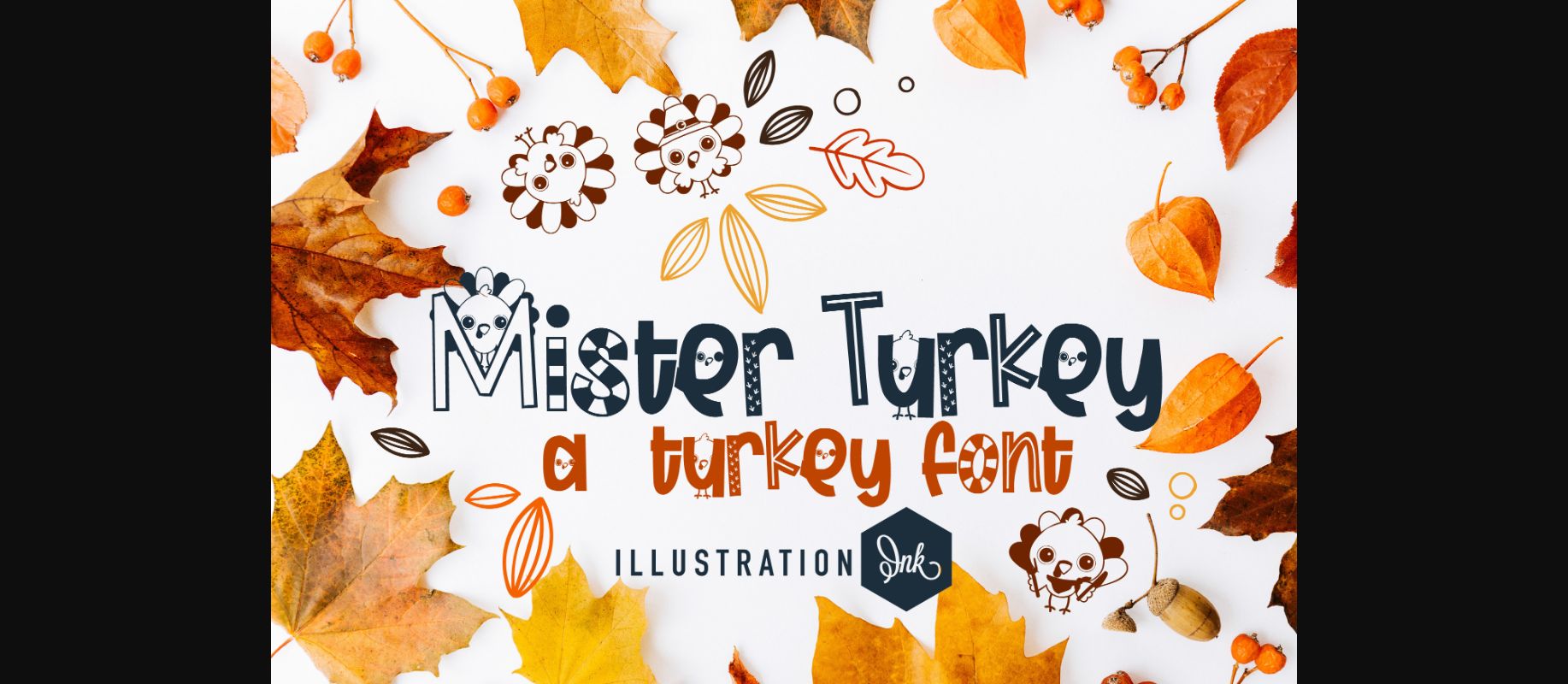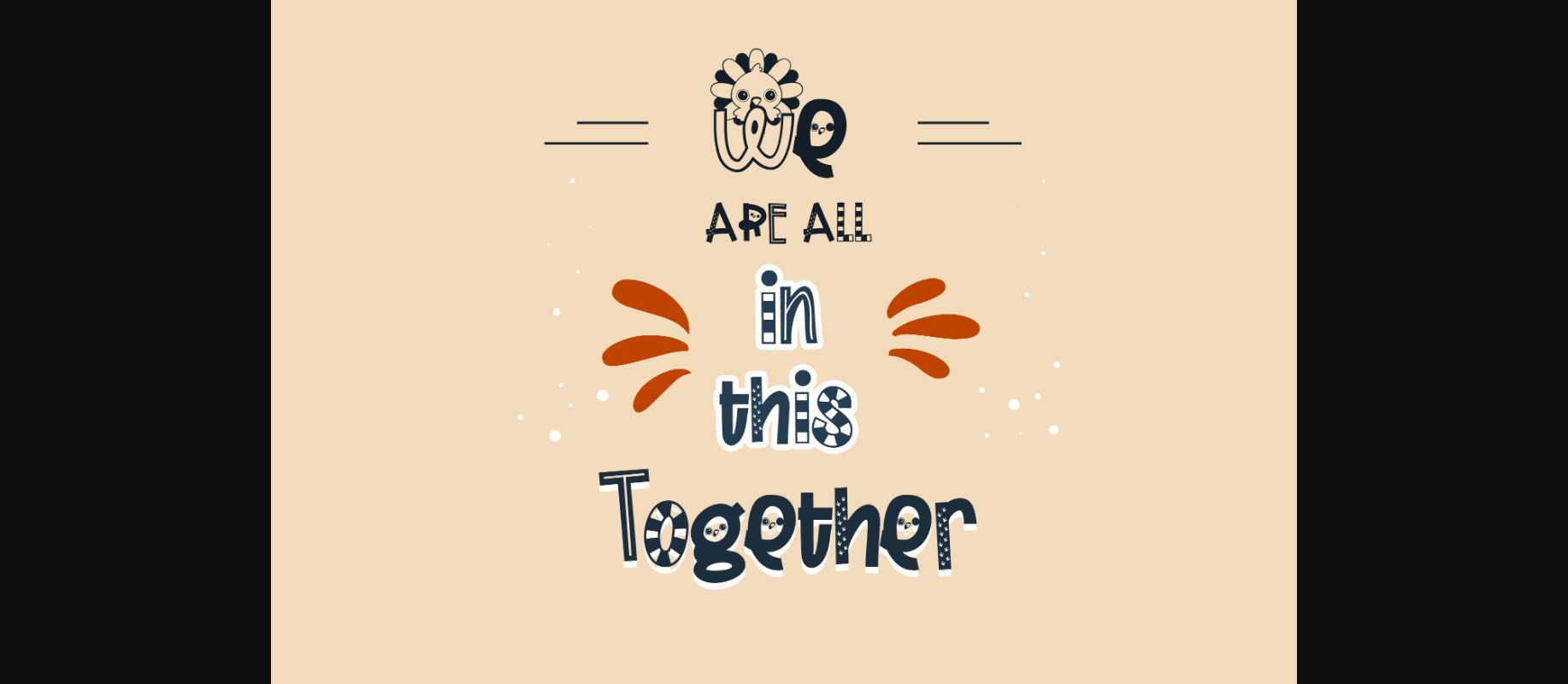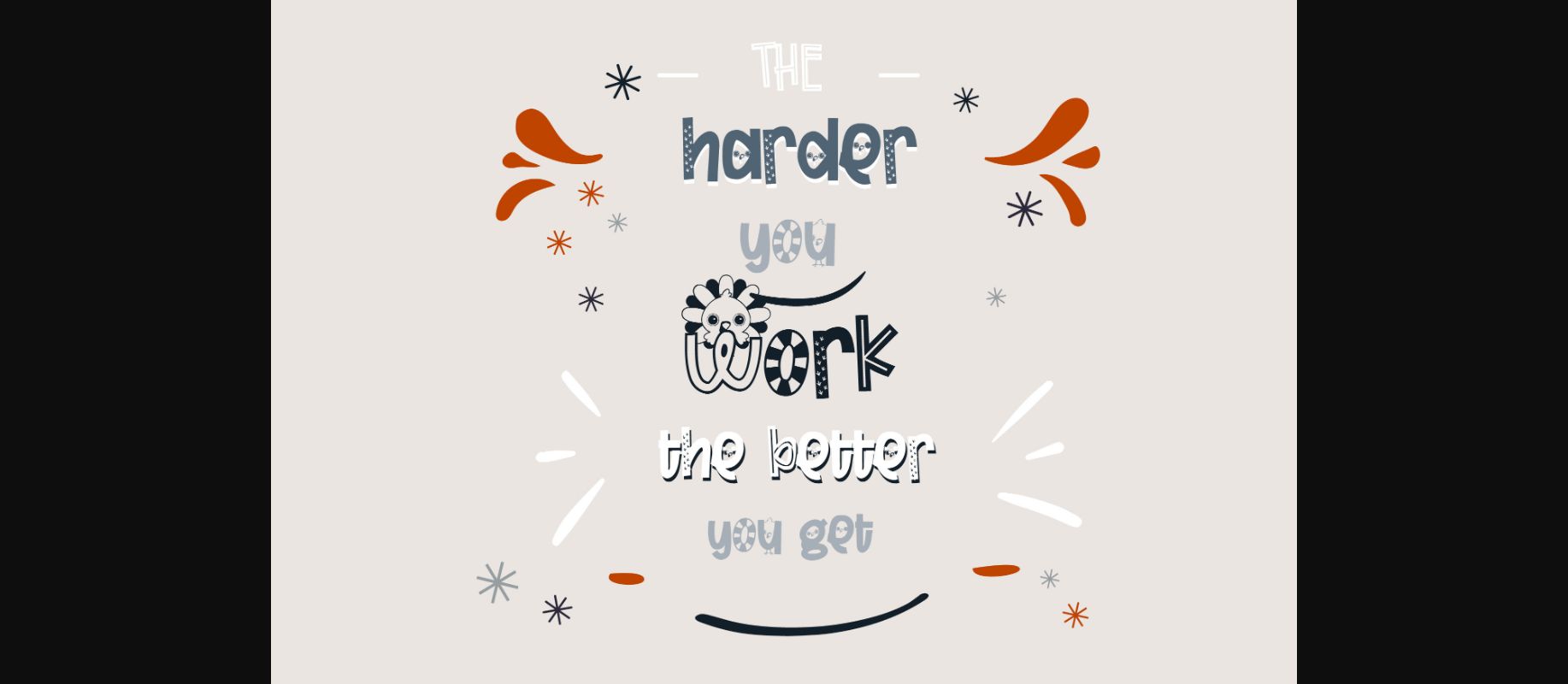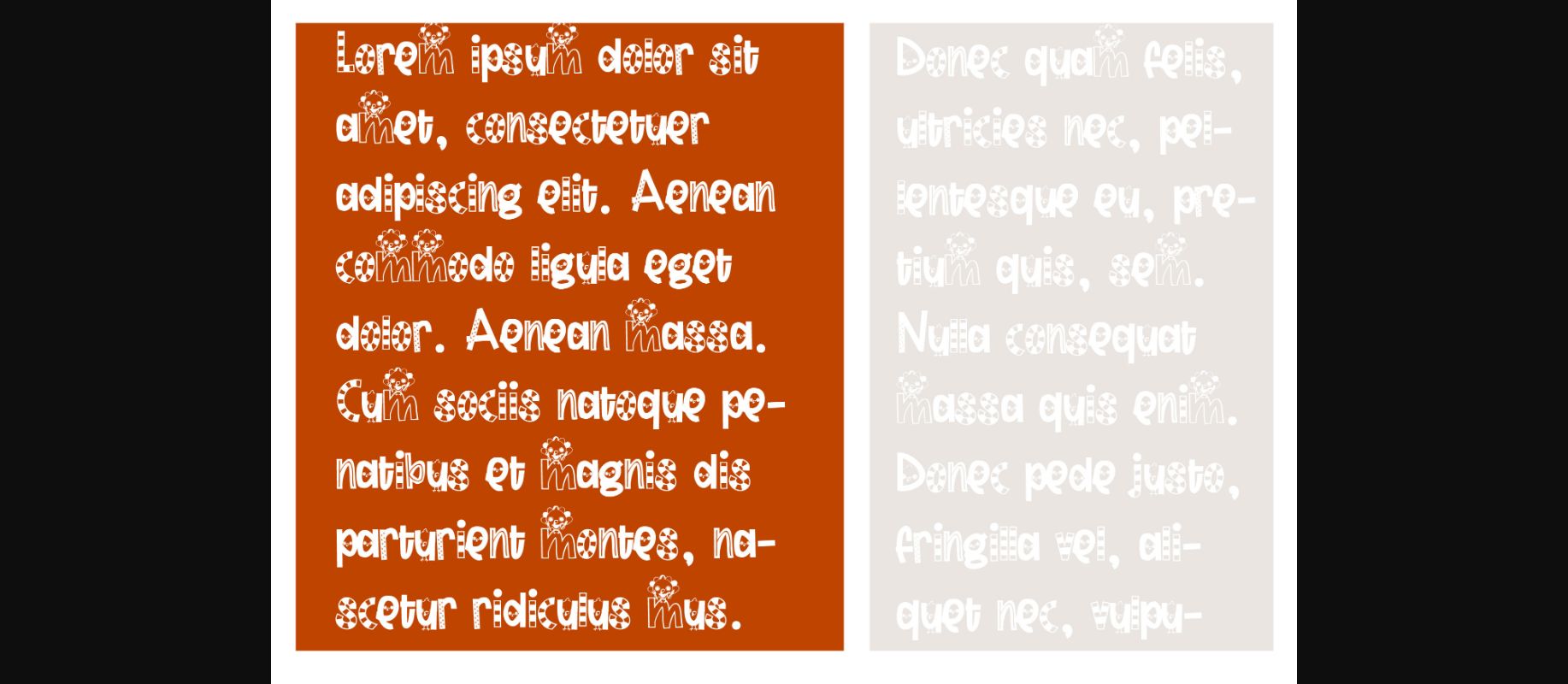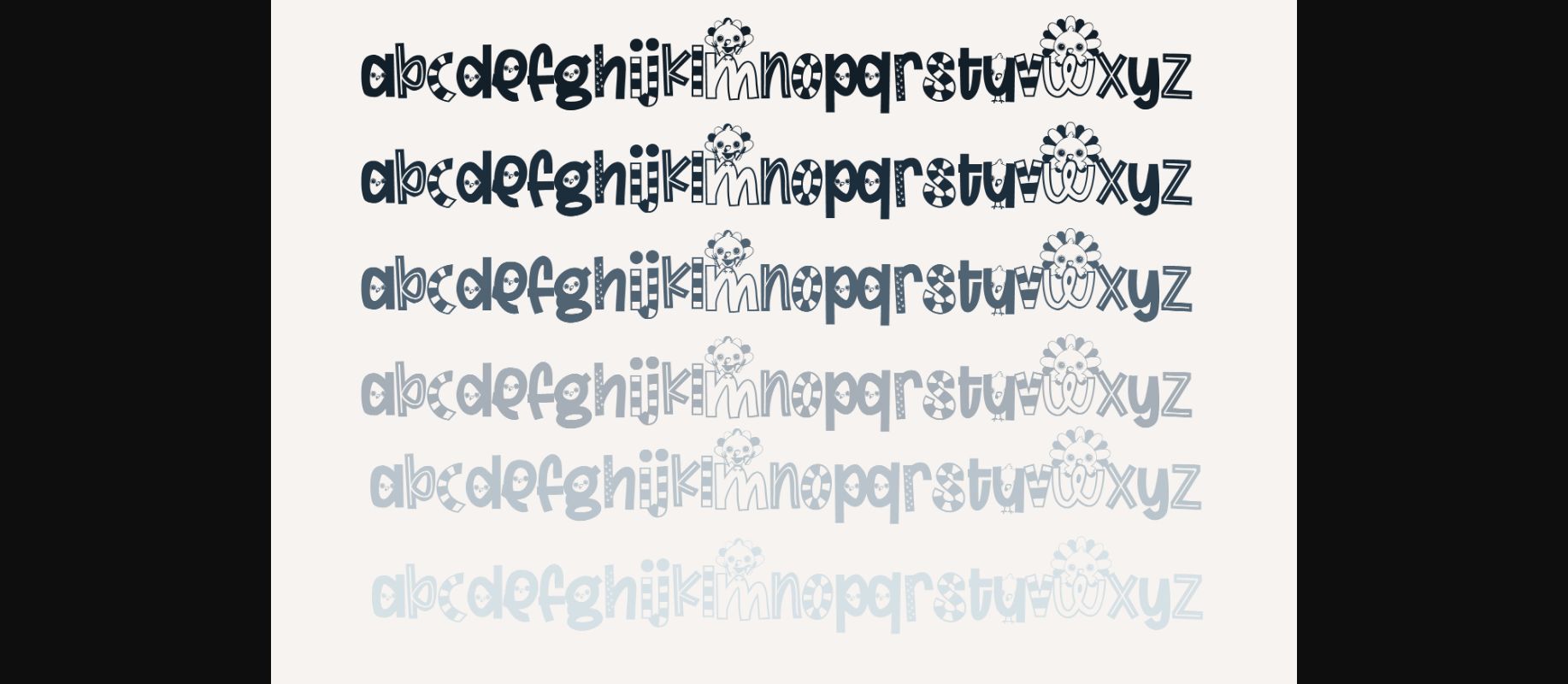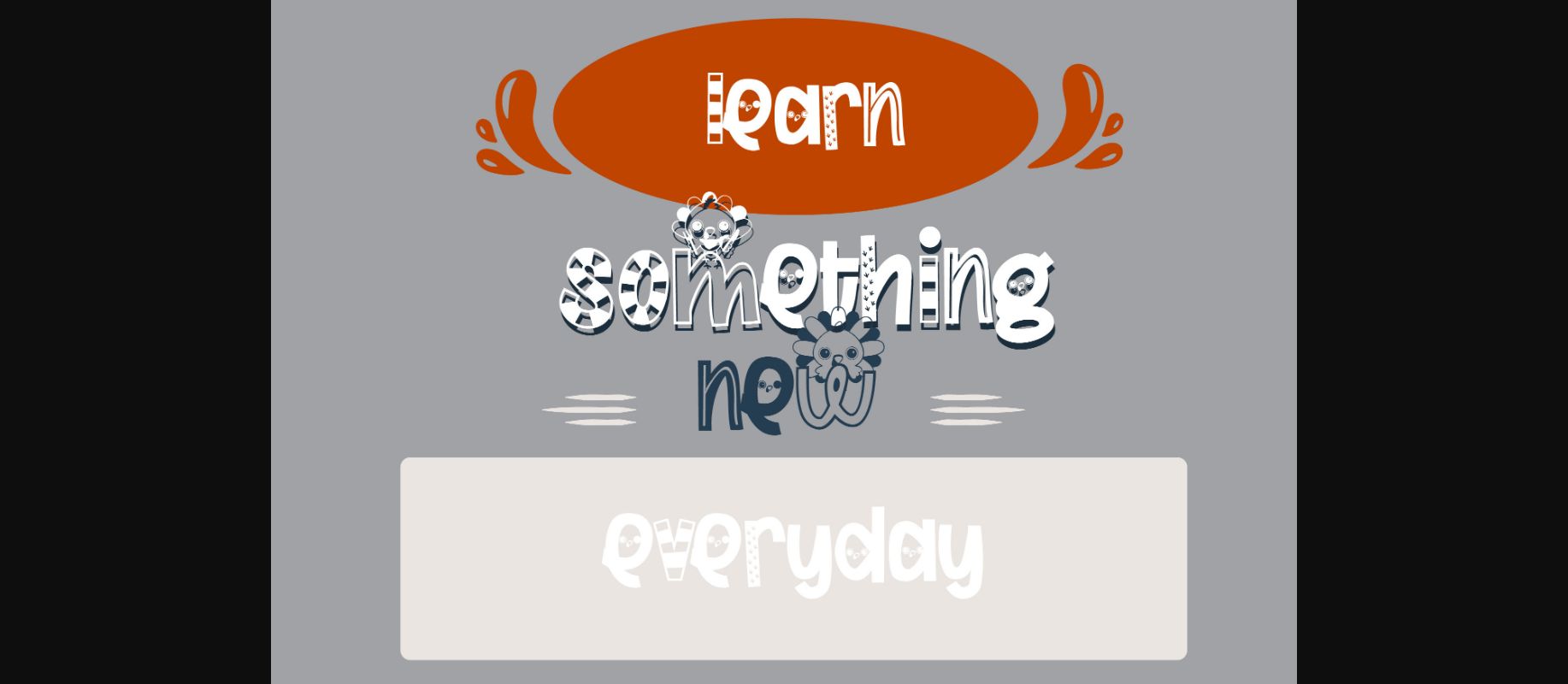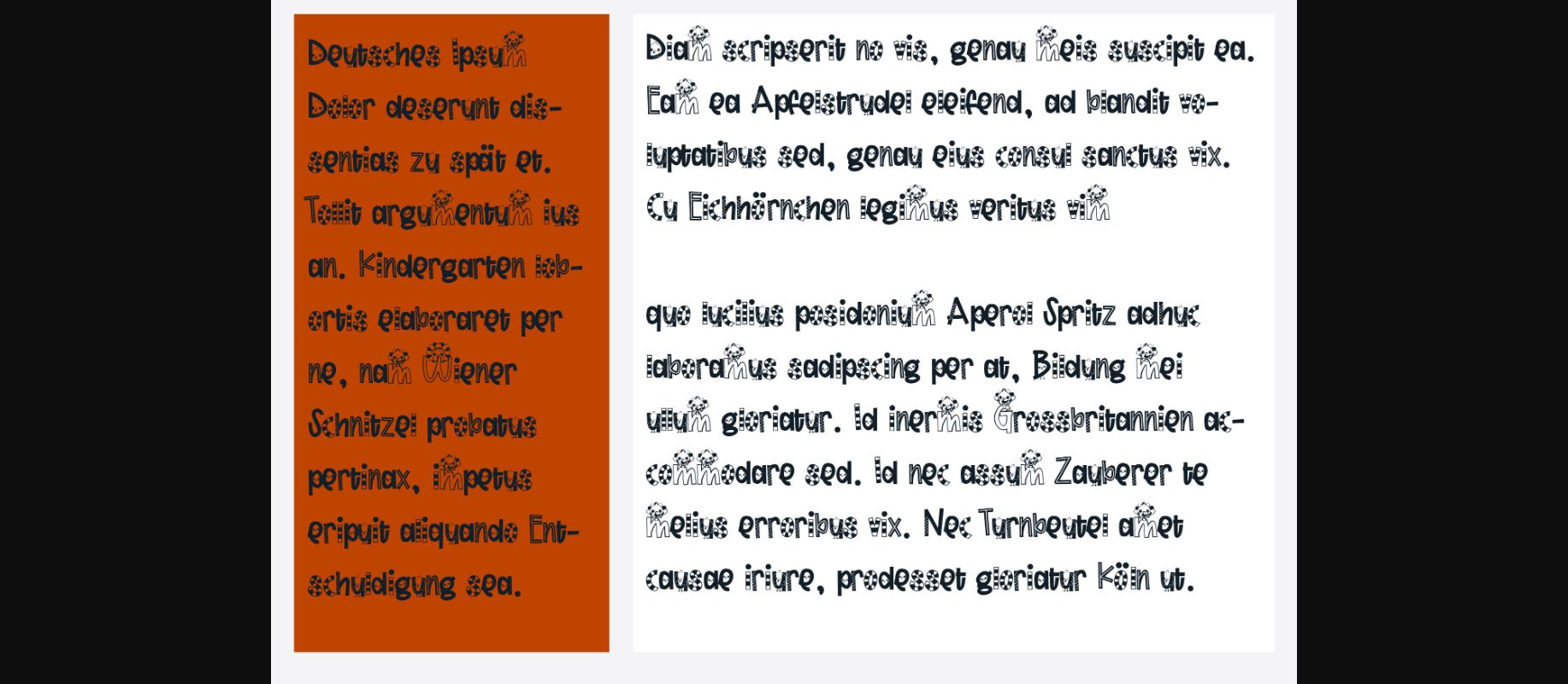
HomeDecorative FontsMister Turkey Font Decorative Fonts Mister Turkey Font FacebookXPinterestWhatsApp 1 of 9 ... Mister Turkey Font Poster 2... Mister Turkey Font Poster 3... Mister Turkey Font Poster 4... Mister Turkey Font Poster 5... Mister Turkey Font Poster 6... Mister Turkey Font Poster 7... Mister Turkey Font Poster 8... Mister Turkey Font Poster 9... About Mister Turkey Font Mister Turkey is a fun, turkey-infused decorative font. Whimsical and a little bit quirky, this font will brighten up each of your designs! DOWNLOAD NOW People also explored Alishakey Font UPSTATE – A Collegiate Style Font Best Strong Font Goodbye Font The Witch Font Beautiful Leaves Font Headlight Sweet Pineapple Font Rabbit Island Font 493 0 TagsMister Turkey Font Previous articleChristmas Spark FontNext articleSanta Snowman Font LEAVE A REPLY Cancel reply Comment: Please enter your comment! Name:* Please enter your name here Email:* You have entered an incorrect email address! Please enter your email address here Website: Save my name, email, and website in this browser for the next time I comment. Personal Use Free Romantic February Personal Use Free Read more about this font Sunshine Tropical Font Personal Use Free Read more about this font DoooLA Personal Use Free Read more about this font Royal Bengal Tiger Personal Use Free Read more about this font BLOG Transform Your Website: Elevate Your Typography with 7 Best Web Font Generators Are you ready to transform your website's typography from ordinary to extraordinary? Great! Today, we're diving into the world of web font generators, which... Free vs Paid Fonts: Why Investing in Premium Fonts Is Worth It How to Install and Use Fonts on Windows, macOS, and Web Projects Best Fonts for YouTube Videos: Make Your Thumbnails Stand Out